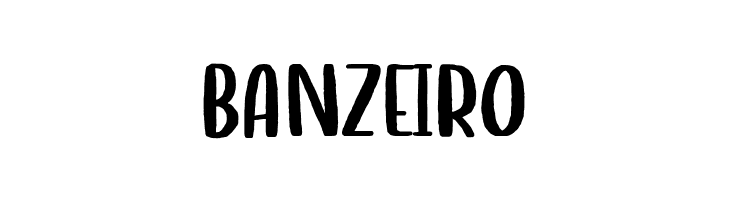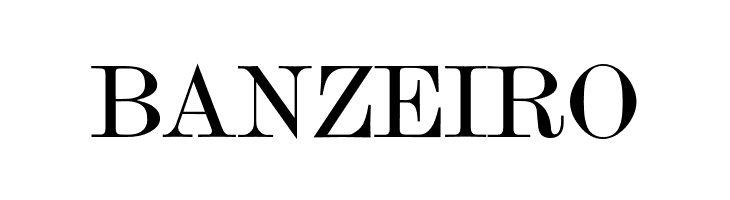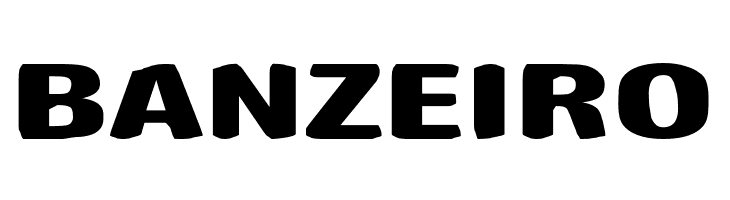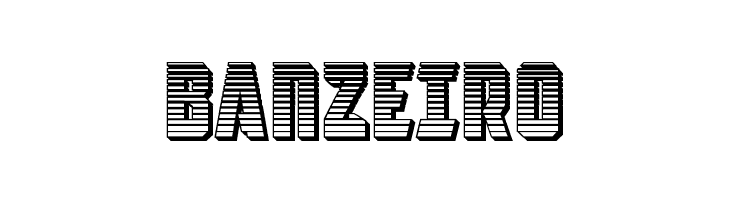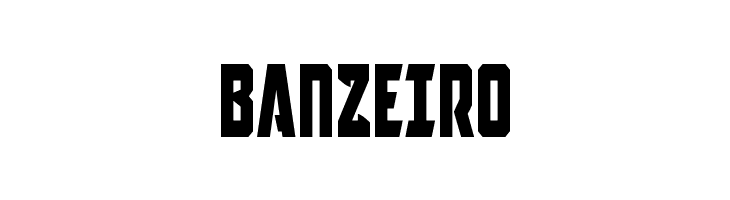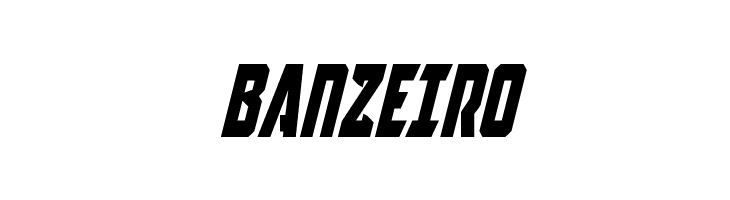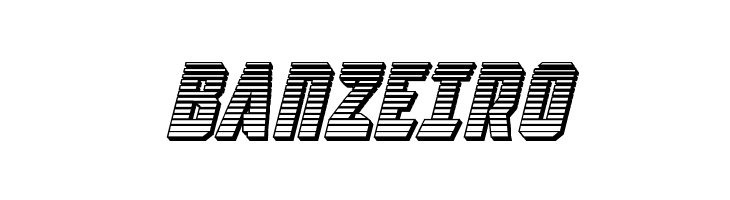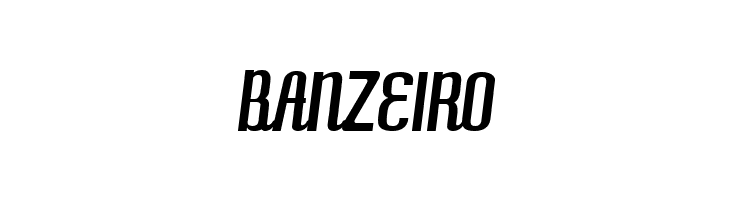
A modern, handwritten font with a casual and dynamic style.
A bold, angular serif font with a modern, edgy design.
A bold, geometric font with a futuristic and modern design.
A geometric, futuristic font with sharp angles and a digital aesthetic.
A bold, playful handwritten font with thick strokes and a casual style.
A bold, slanted font with dynamic and energetic letterforms.
A modern sans-serif font with rounded edges and uniform strokes.
A bold, rounded font with a playful and friendly appearance.
A modern, geometric font with thin strokes and balanced spacing.
A modern, rounded sans-serif font with a clean and approachable style.
A modern, geometric font with smooth, rounded edges and balanced spacing.
A bold, rounded sans-serif font with smooth curves and a modern look.
A modern, rounded sans-serif font with a friendly and approachable style.
A bold, rounded typeface with smooth curves and uniform strokes.
A bold, rounded font with smooth curves and a modern, friendly style.
A clean, modern font with uniform strokes and minimalist design.
An ultra-thin, geometric font with a modern and minimalist design.
A clean, modern font with smooth, rounded edges and uniform stroke width.
A modern, rounded font with uniform stroke width and clean lines.
A sleek, modern font with thin, geometric lines and excellent legibility.
A bold, brush-style font with dynamic, jagged strokes.
A cursive, handwritten font with elegant loops and a modern calligraphic style.
A bold, decorative font with a vintage, three-dimensional effect.
A classic serif font with high contrast and elegant serifs.
A classic serif font with elegant strokes and a refined, traditional appearance.
A playful, grid-encased font with a modern, balloon-like appearance.
A dynamic, expressive handwritten font with fluid strokes.
A decorative and whimsical font with intricate curls and swirls.